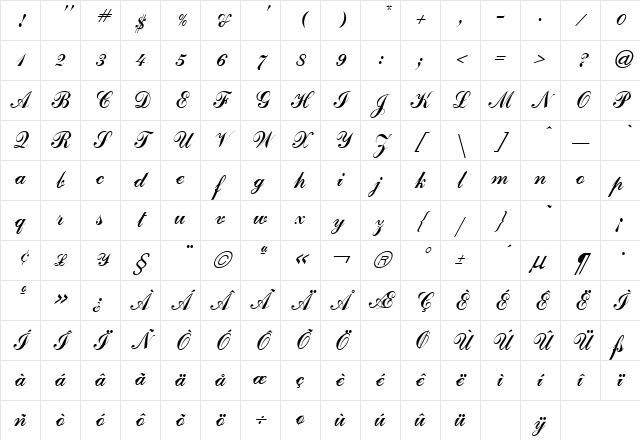
Commercial Regular
Design Context for Commercial
Commercial is a composed and adaptable typeface that performs quietly and consistently across a wide range of design contexts.
Pro Tip: Use Commercial in both headline and body roles to test its range before committing to a single application.